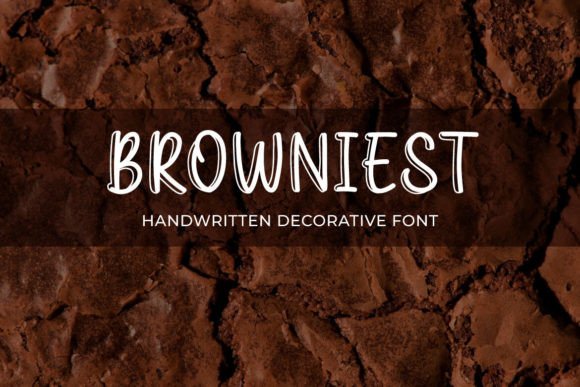
Browniest Font: The Sweetest Addition to Your Design Arsenal
Are you tired of using the same old fonts in your designs? Look no further! Introducing Browniest, a sweet and friendly handwritten font that’s sure to add a touch of warmth and personality to your creations. With its natural and unique style, Browniest is incredibly versatile and can be used in a wide range of designs, from DIY crafts to professional branding projects.
The Charm of Browniest Font
Browniest is a handwritten font that’s all about charm and character. Its sweet and friendly vibe makes it perfect for designs that require a personal touch. Whether you’re creating invitations, greeting cards, or social media graphics, Browniest is sure to make your designs stand out from the crowd. The font’s natural and unique style gives it a homespun feel that’s both approachable and engaging.
The best part about Browniest is its incredible versatility. The only limit is your imagination! You can use it to create a wide range of designs, from:
- DIY crafts and scrapbooking projects
- Branding and packaging designs
- Signs and posters
Whether you’re a professional designer or a crafty DIY enthusiast, Browniest is the perfect addition to your design arsenal.
What Makes Browniest Special?
So, what sets Browniest apart from other fonts? Here are just a few things that make it special:
- Unique and handmade feel: Browniest has a truly unique and handmade feel that’s hard to find in digital fonts.
- Natural and effortless style: The font’s natural and effortless style makes it perfect for designs that require a personal touch.
- Highly legible: Despite its handwritten nature, Browniest is highly legible and easy to read.
- Extremely versatile: Browniest can be used in a wide range of designs and contexts.
Tips for Using Browniest Font
Here are a few tips for getting the most out of Browniest:
- Pair it with bold fonts: Browniest pairs perfectly with bold fonts, creating a beautiful contrast that’s sure to make your designs pop.
- Use it for headings and titles: Browniest is perfect for headings and titles, adding a touch of personality and whimsy to your designs.
- Experiment with colors: Browniest looks great in a variety of colors, from bright and bold to soft and pastel.
In conclusion, Browniest is a sweet and friendly handwritten font that’s sure to add a touch of warmth and personality to your designs. With its natural and unique style, Browniest is incredibly versatile and can be used in a wide range of designs. Whether you’re a professional designer or a crafty DIY enthusiast, Browniest is the perfect addition to your design arsenal. So why wait? Give Browniest a try today and see the difference it can make in your designs!